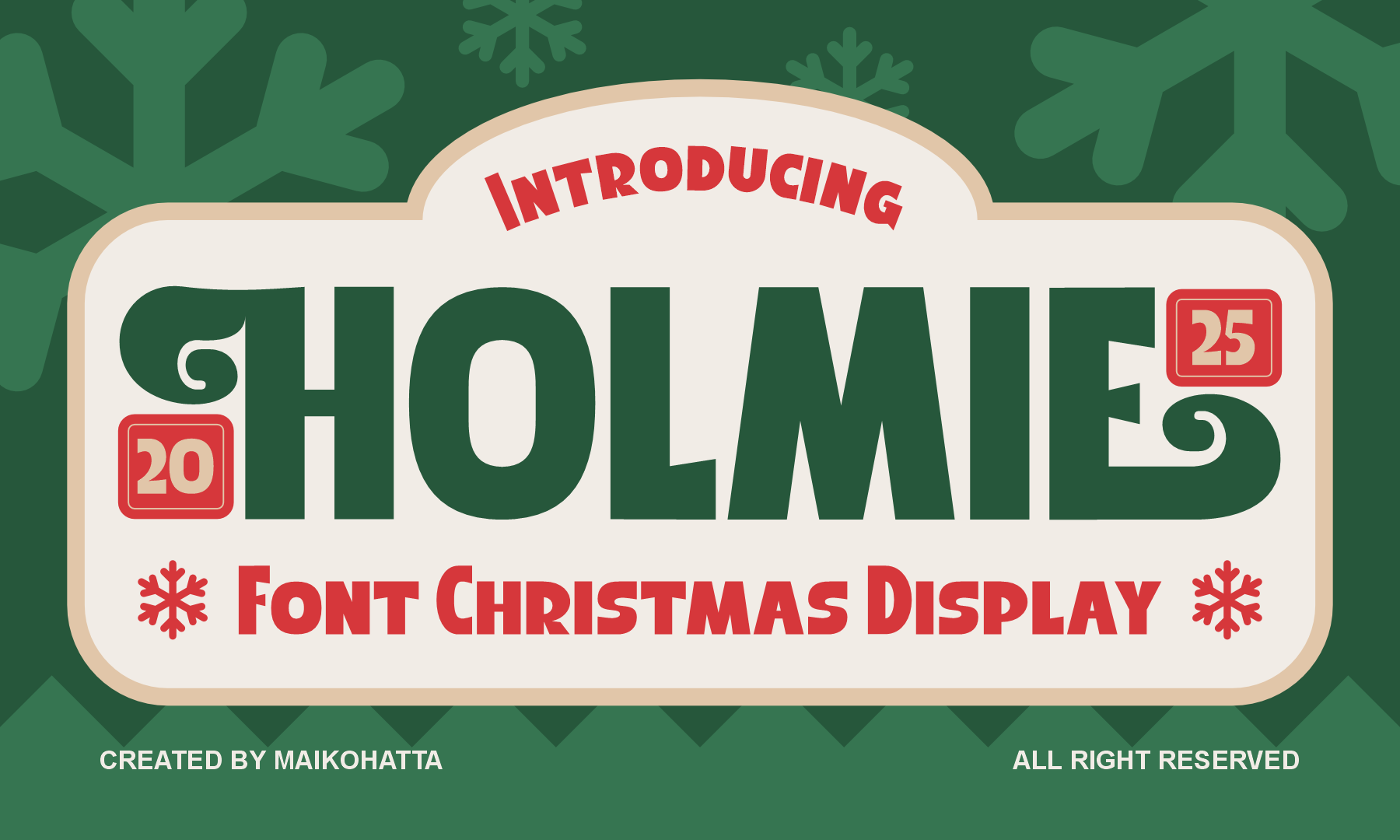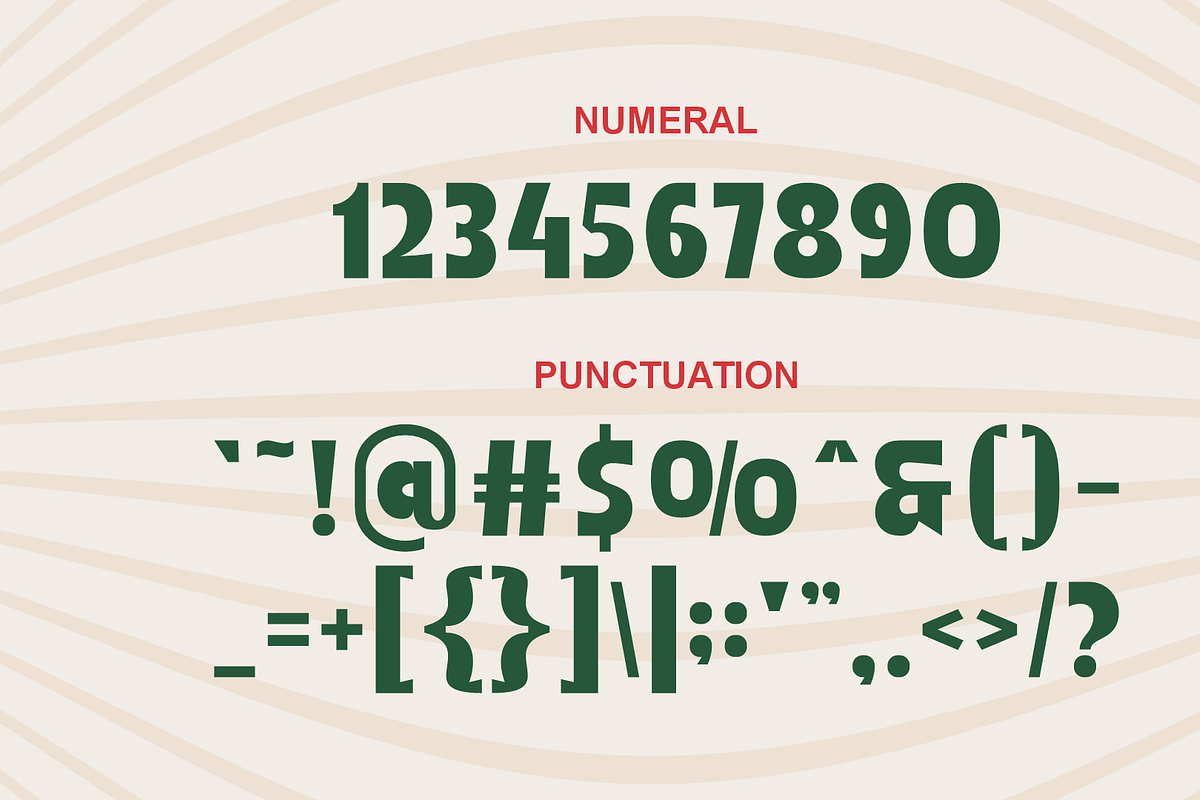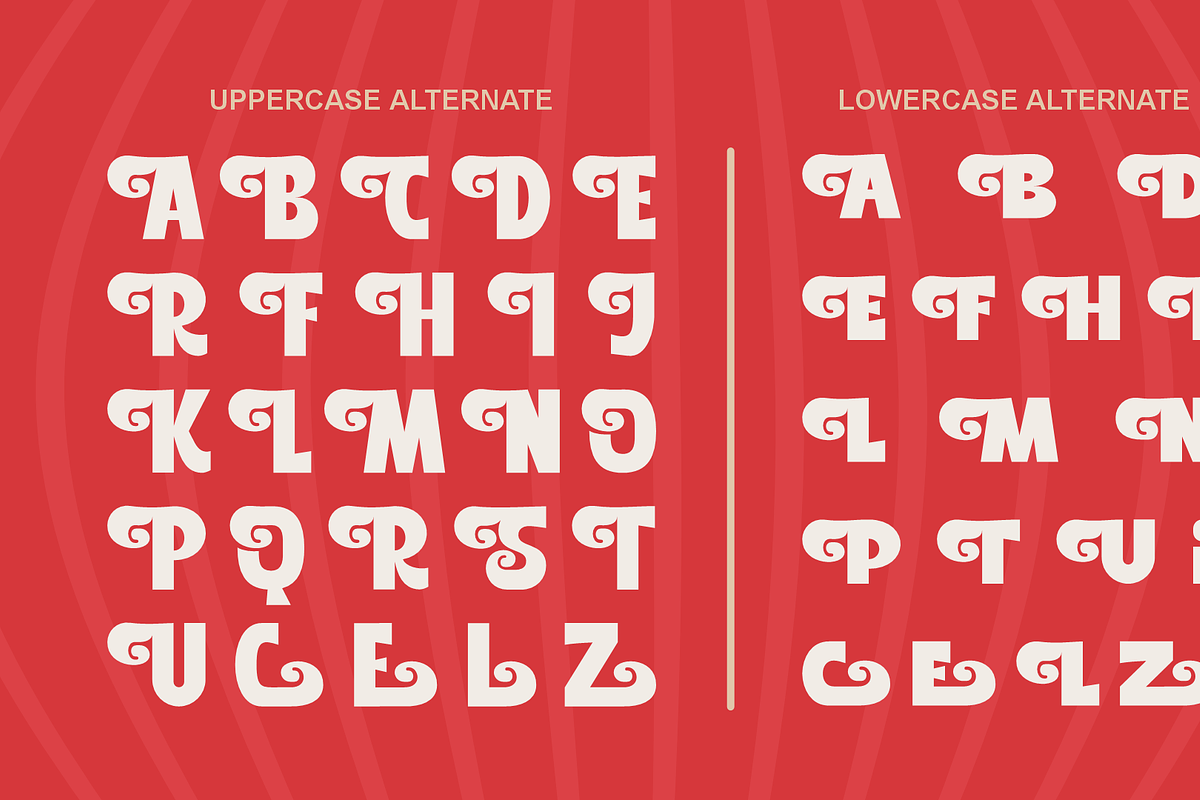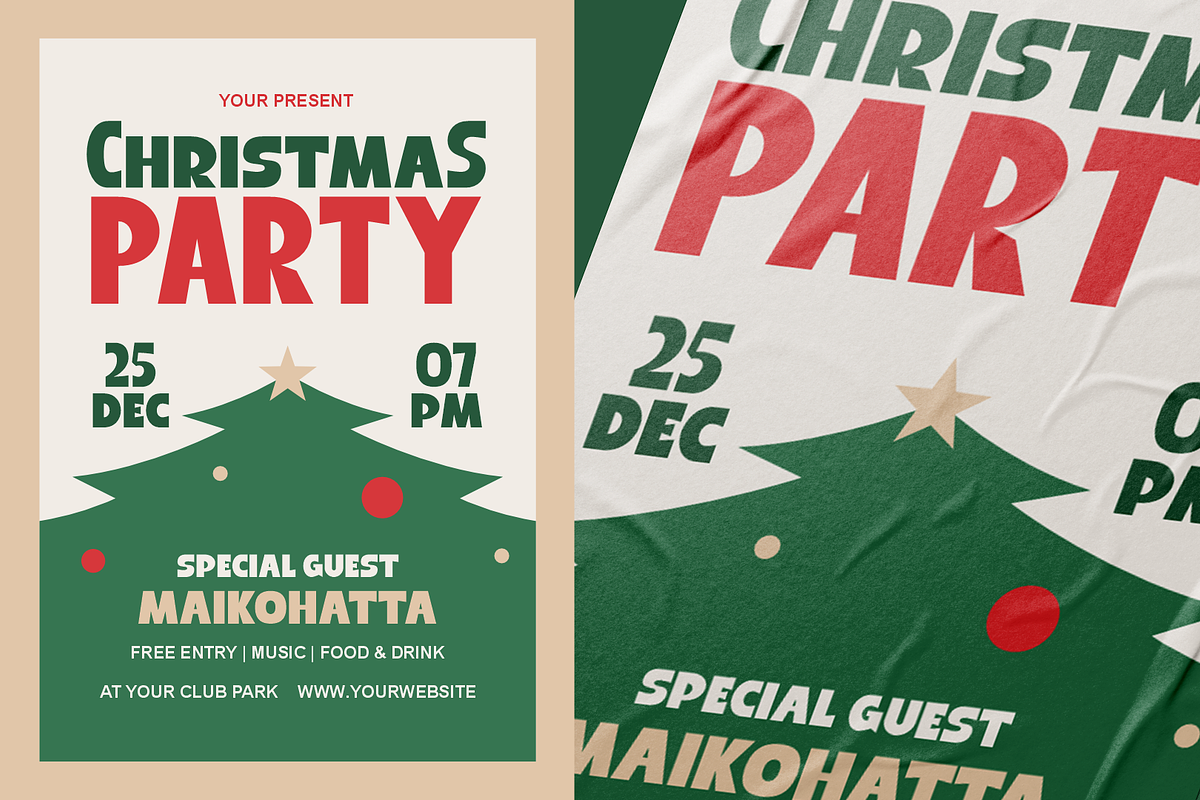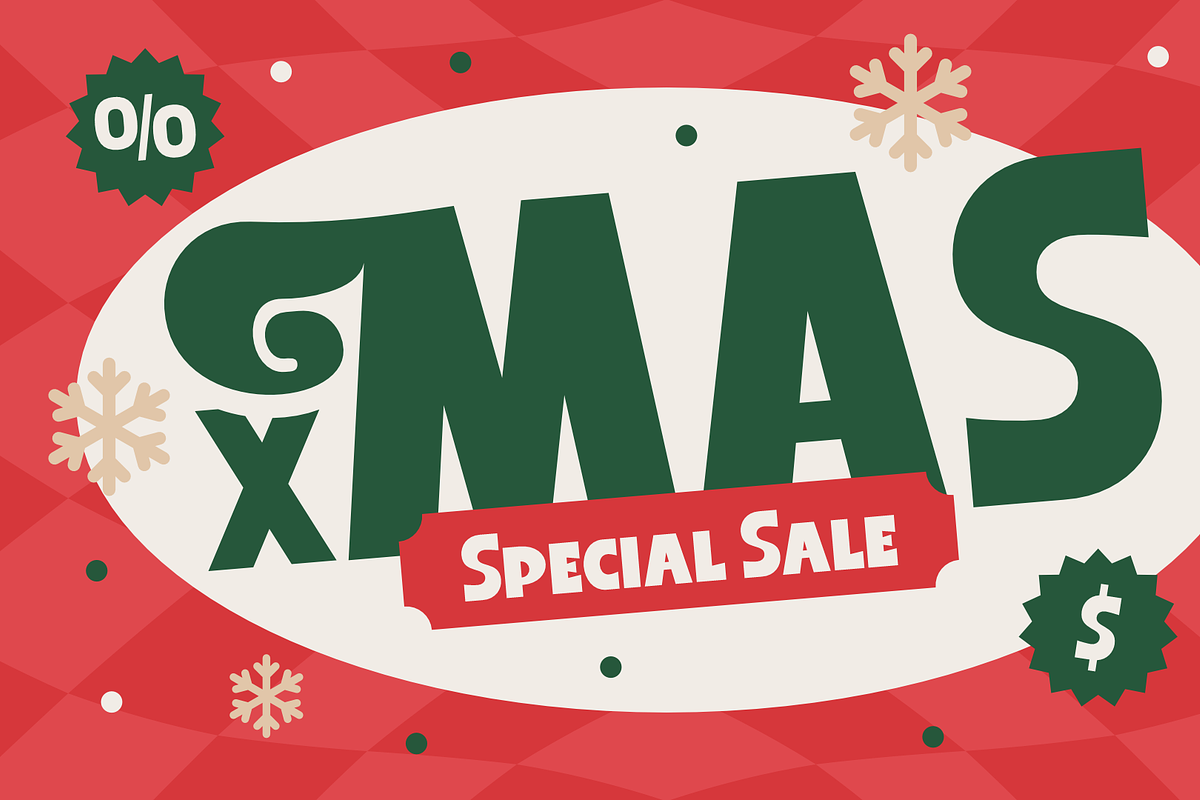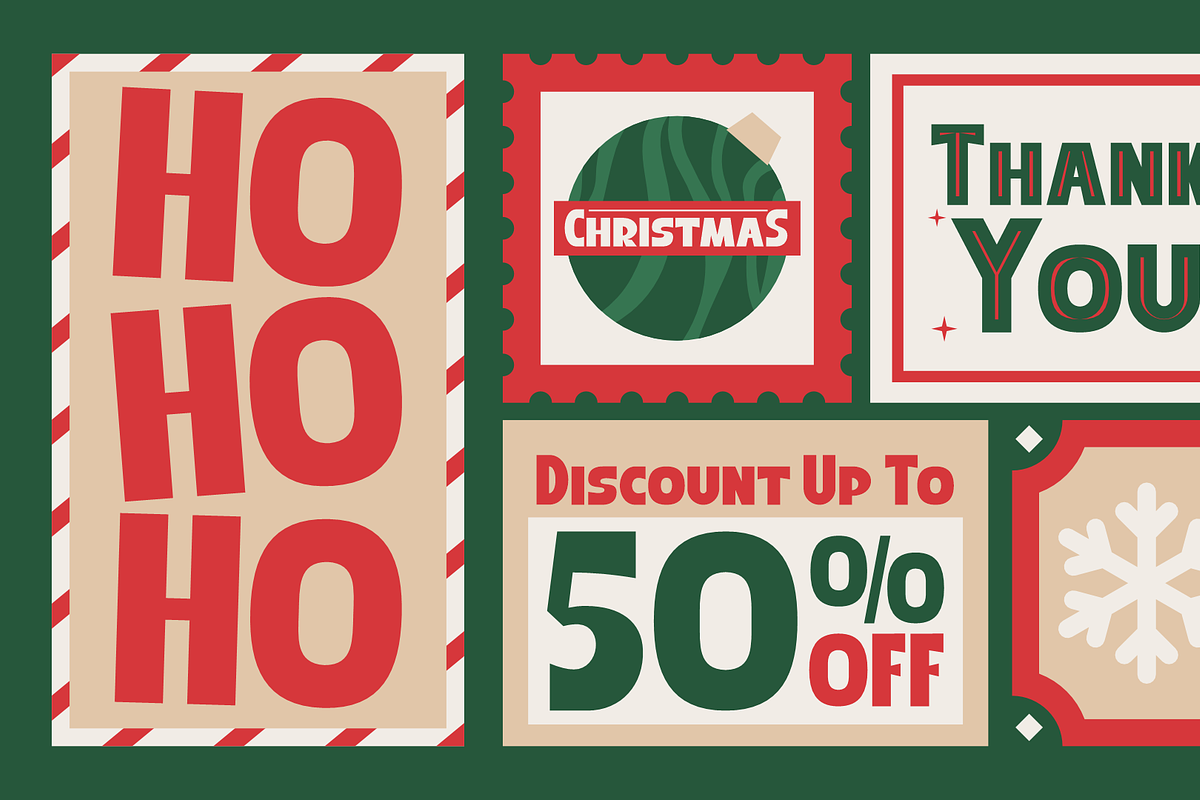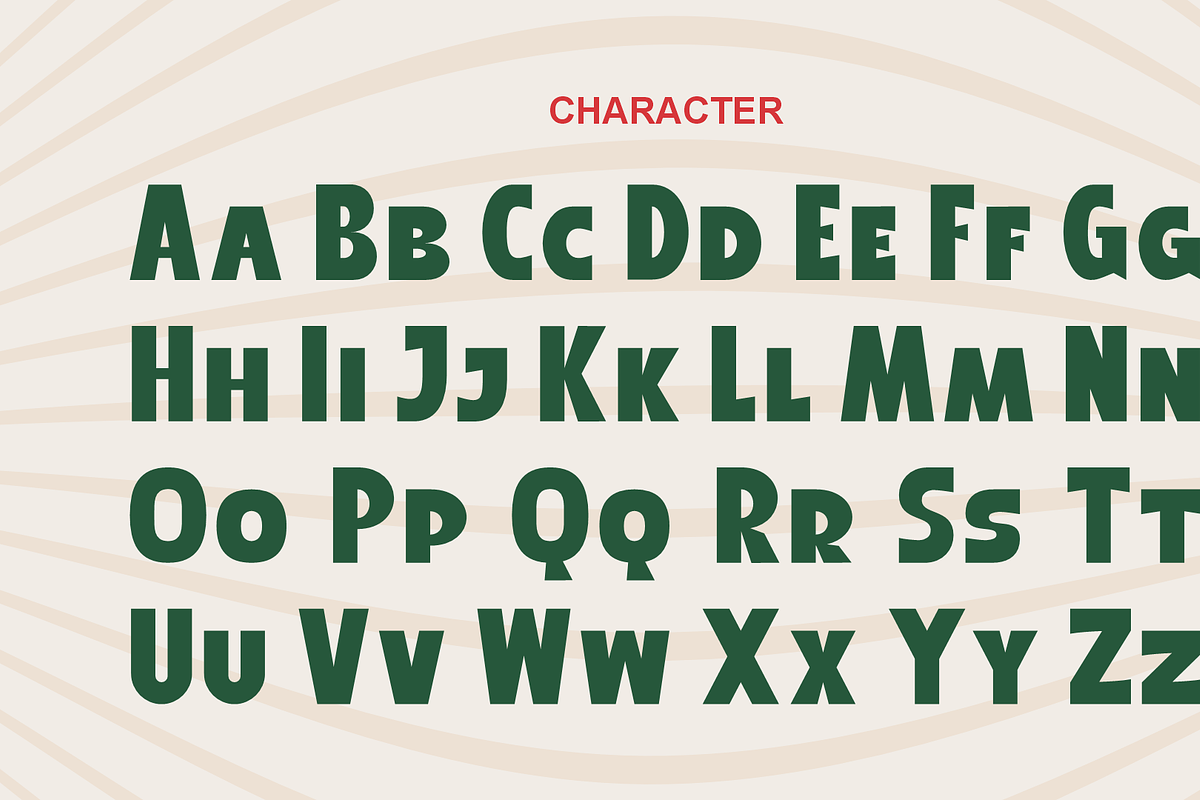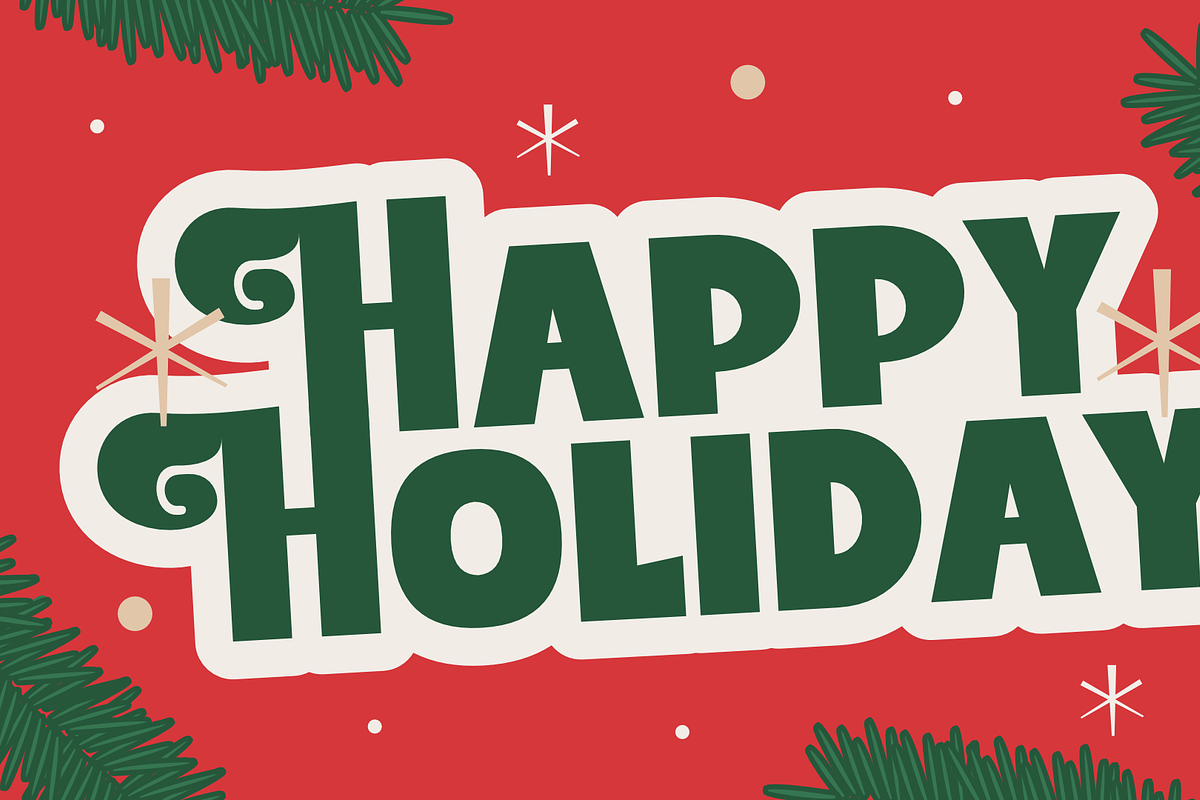
Holmie – Christmas Display Font
Holmie is a cheerful and festive Christmas display font designed to bring warm holiday vibes to any project. With bold letterforms, playful curves, and decorative swirls, this typeface captures the joyful spirit of winter celebrations. Its retro-inspired shapes and cozy handcrafted feel make it perfect for Christmas cards, gift labels, posters, branding, packaging, social media, and all your holiday-themed designs.
Combining vintage charm with modern clarity, Holmie adds personality and seasonal magic to every layout—making your holiday creations feel merry, bright, and unforgettable.